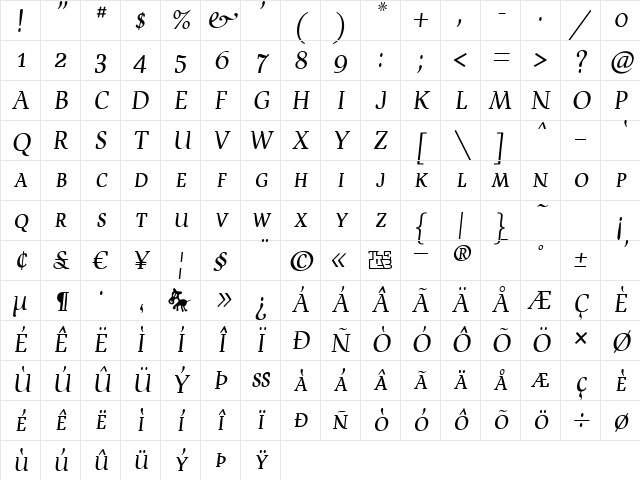
Devroye SCOSF Regular Free Font
Devroye SCOSF Regular
Designer: Apostrophe
Design Context for Devroye SCOSF
Devroye SCOSF is a composed and adaptable typeface that performs quietly and consistently across a wide range of design contexts.